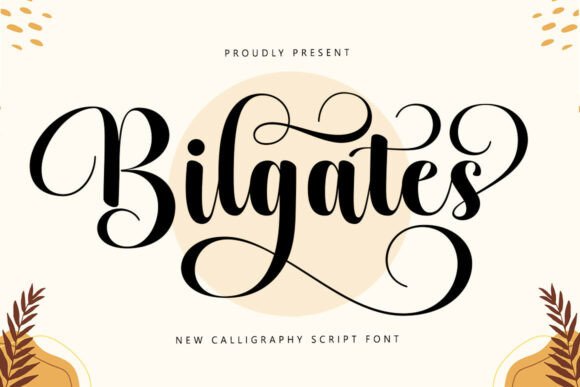
The Elusive Font: A Designer’s Love Affair with Bilgates
I still remember the frustration of working on a project, hours spent searching for the perfect font, only to come up empty-handed. My client wanted an elegant and romantic style for their wedding invitation, and I was determined to deliver. That’s when I stumbled upon Bilgates, a beautiful calligraphy font that combines modern style with classic elegance. It was love at first sight! 💕
What I Love About Bilgates ✨
- ✅ Smooth and clean lines that exude elegance and sophistication
- ✅ Highly legible, making it perfect for body text and headings
- ✅ Feminine, sensual, and glamorous, with a touch of romance
While Bilgates is an amazing font, there are a few things to keep in mind:
- 🤔 Some users may find the font too ornate or delicate for certain projects
- ⚠️ May not be suitable for very small font sizes or low-resolution images
The Story Behind Bilgates: Designer Inspiration
The story behind Bilgates is one of passion and dedication. The font was designed by a team of typographers who wanted to create a beautiful, elegant script font that would inspire creativity and romance. With its smooth lines, classic style, and modern twist, Bilgates is the perfect font for designers, crafters, and creative hobbyists.
| Font Name | Bilgates Font |
| Author | queenopstudio |
Q: Is Bilgates suitable for body text?
A: Yes, Bilgates is highly legible and can be used for body text, but it’s recommended to use a larger font size for optimal readability.